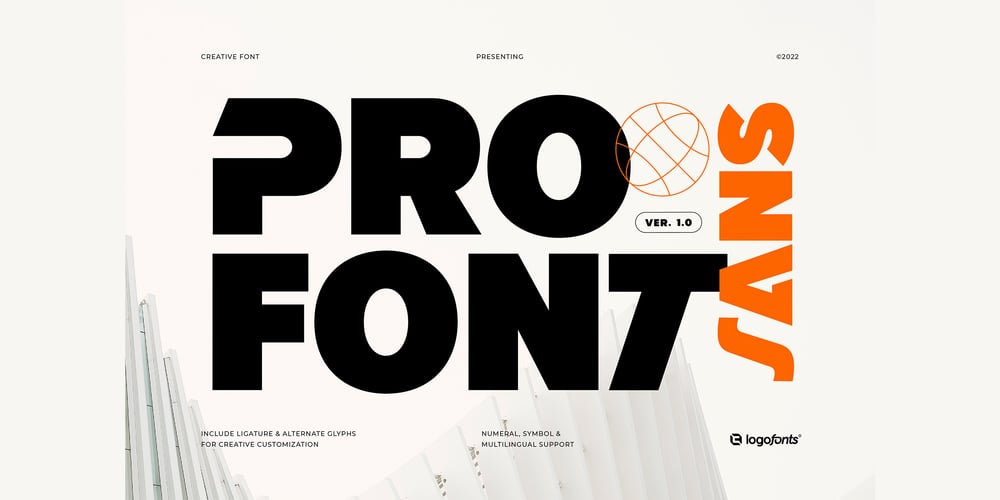
Profont Sans Font Family was designed by Anna Safitri and published by Logofonts. Profont Sans contains 1 styles and family package options. Pro Font is Sans Serif fonts great for product logo, poster, headline, card logo, web, magazine, packaging, stationery and much more. Easily creates your own logo type with fonts. Pro Font Sans has an Open Type feature to access a large selection of unique alternative letters and many ligatures to make it easier for you to create.Pro Font Sans can be accessed perfectly on design applications such as Adobe Illustrator, Adobe Photoshop, Corel Draw, Affinity Designer but does not rule out the possibility that it can also be accessed using web-based applications such as kittl, canva, artboard studio and others.